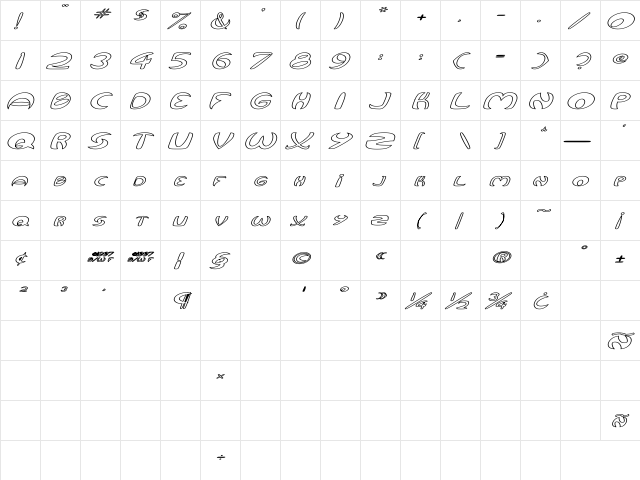
Qurve Hollow Wide Italic
Design Context for Qurve Hollow Wide Typeface
Qurve Hollow Wide is a composed and adaptable typeface that performs quietly and consistently across a wide range of design contexts. The slanted form adds forward momentum and visual energy.